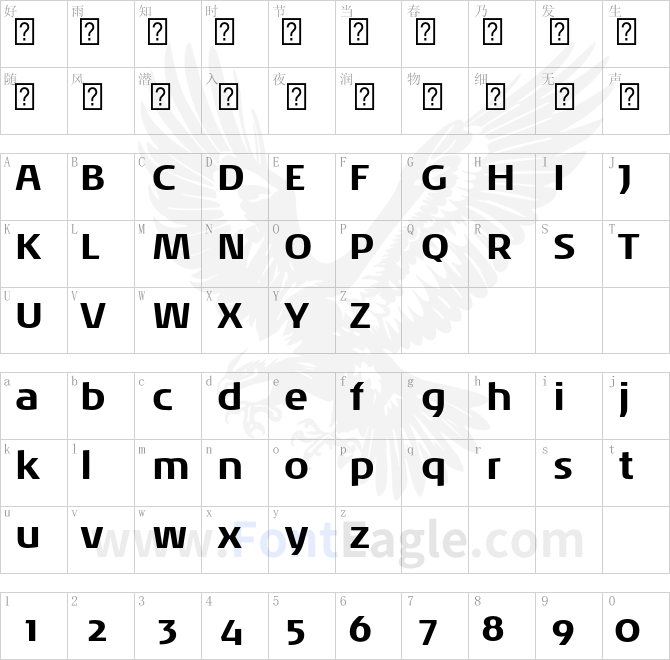
- Font name:Noa LT Std
NoaLTStd-Bold is a great font, widely used in graphic design, single-page menu design, poster design and other fields, and is deeply loved by designers.NoaLTStd-Bold download.